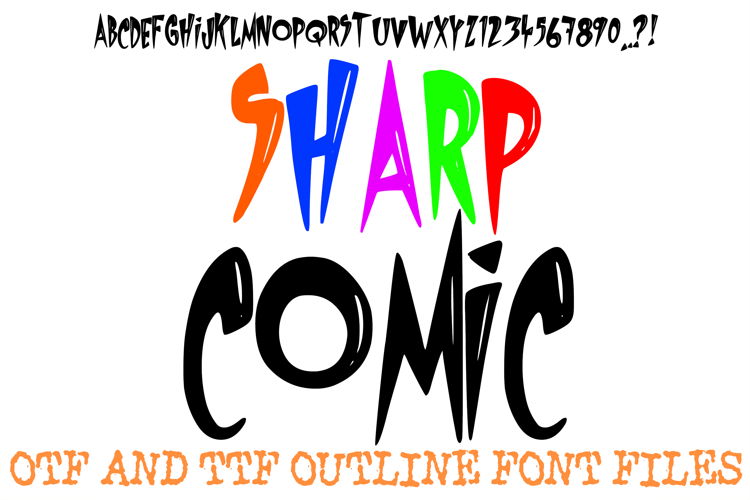
Sharp Comic Alphabet Font Lettering ABC Cartoon OTF TTF Type
The Sharp Comic Font is an explosive, high-energy display typeface that perfectly blends the friendly volume of pop art lettering with aggressive, punk-rock geometry. Each character features a beautiful duality: smooth, ballooning upper curves detailed with hand-drawn gloss reflection marks, paired with dramatically elongated, razor-sharp vertical descenders that look like lightning bolts or tactical spikes. This striking contrast makes it a premier choice for designers working on action graphic novels, edgy streetwear merchandise, skate deck graphics, video game title screens, and high-impact event posters.
The design masterfully utilizes varying baseline heights and sudden, jagged angles to give text a powerful sense of forward momentum and kinetic motion. Because the characters feature bold, solid black bodies accented by crisp interior white highlight slits, they look three-dimensional and instantly leap off the page. Whether you are lettering a dramatic superhero showdown, creating a heavy-metal band logo, or designing a bold layout for custom vinyl stickers, this font delivers an unforgettable punch to your digital toolkit.
Aggressive Spiked Descenders: Elongated, weapon-like points tear through the bottom baseline to inject instant danger and high-octane energy into titles.
Glossy Highlight Details: Built-in white reflection marks on the rounded upper curves mimic a sleek, shiny sticker or wet marker texture.
Dynamic Action Proportions: Varying widths, jagged cuts, and rhythmic spacing reject standard uniformity for an authentic, hand-drawn comic book splash page feel.
Maximum Contrast Graphic Weight: Heavy, solid fills provide incredible visual presence, ensuring headings remain completely dominant even against busy backgrounds.